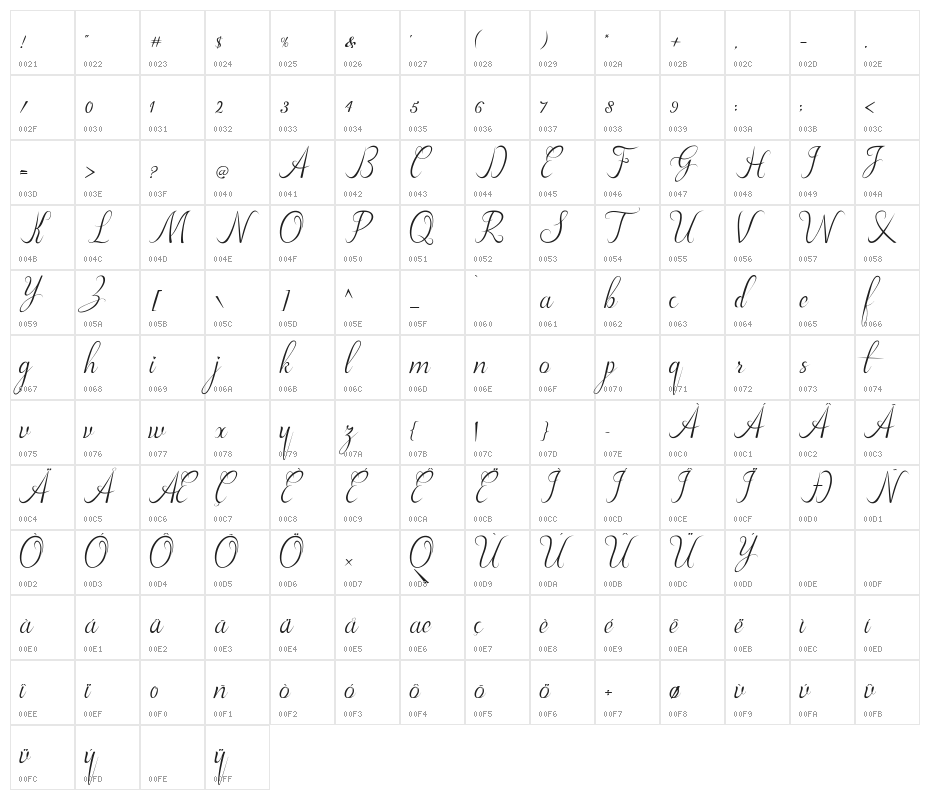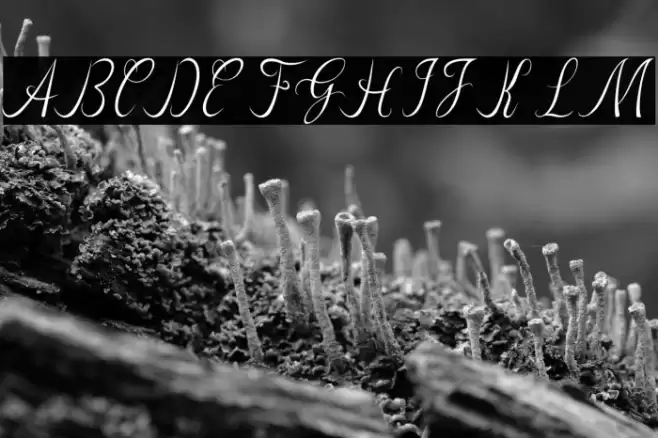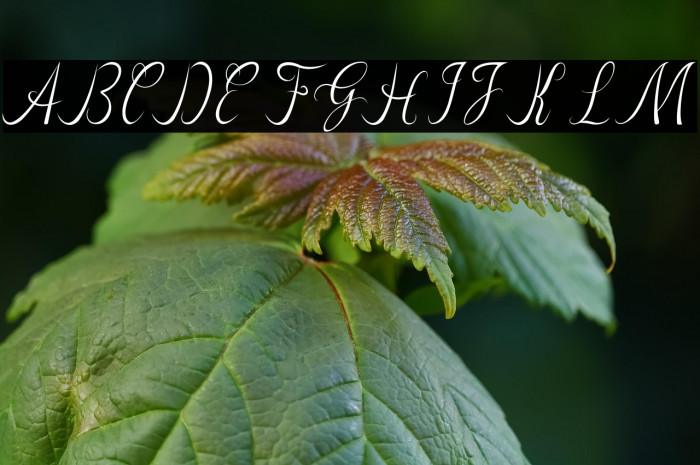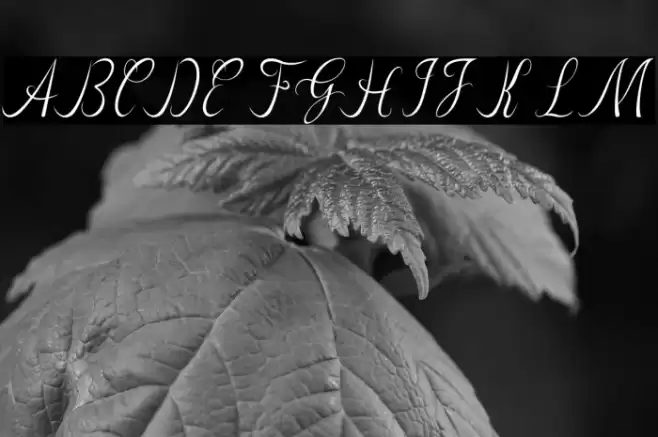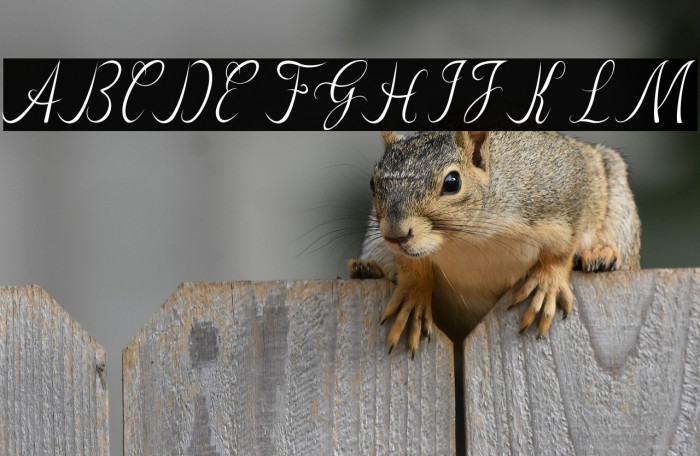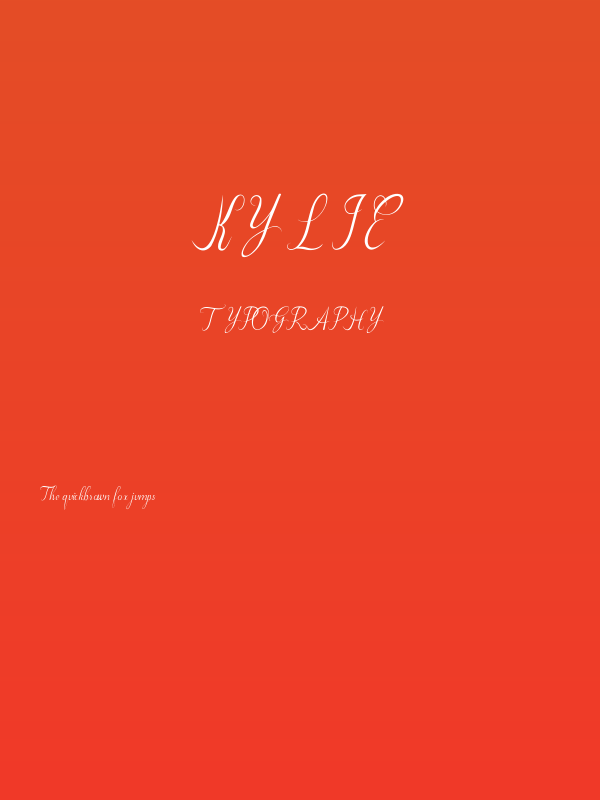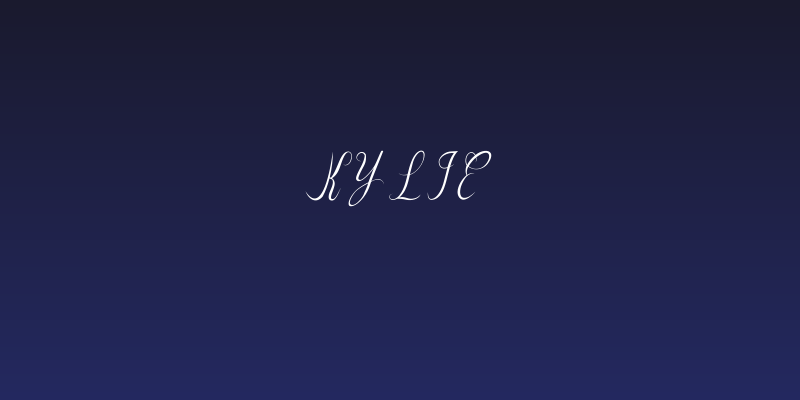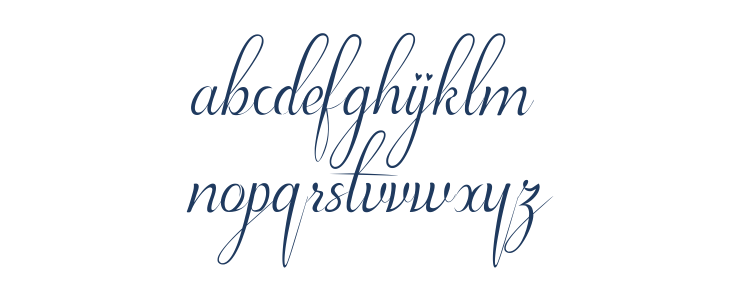
Kylie Font
Kylie Description
This elegant script font features a flowing, cursive style with graceful loops and swashes. The uppercase letters are tall and slender, with delicate curves that add a sense of sophistication. The lowercase letters maintain a consistent flow, with some characters extending below the baseline, enhancing the font's ornate appearance. The numerals are styled to match the script's fluidity, while the special characters integrate seamlessly with the overall design. This font's refined and decorative nature makes it suitable for formal and creative projects.
| Proposed Projects | Ideal for wedding invitations, elegant branding, greeting cards, and high-end product packaging. |